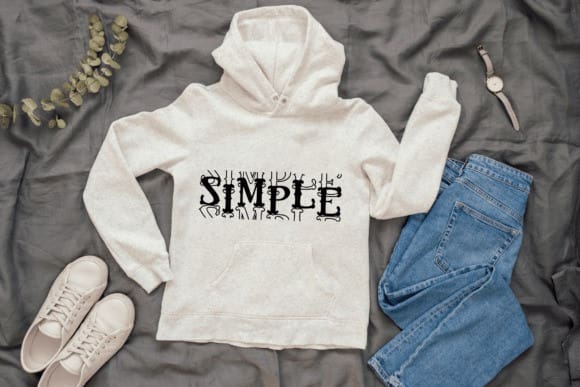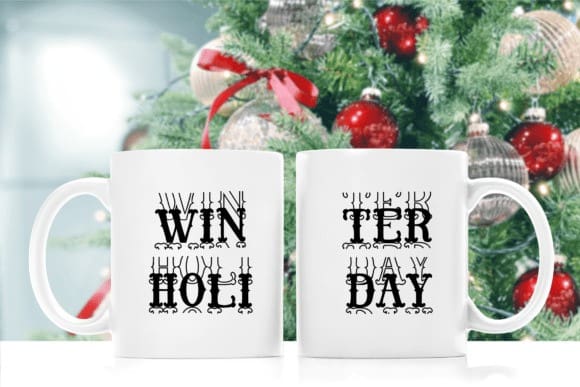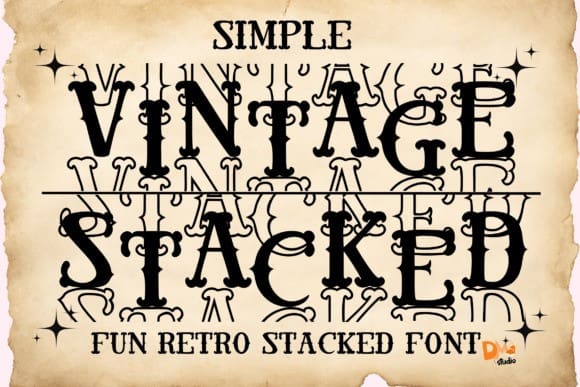
Simple Vintage Stacked Font
Simple Vintage Stacked Font, also known as the Zigzag Stacked Font. Seamlessly intertwining vintage appeal with modern design, this one-of-a-kind typeface offers a playful twist to classic monogram structures. Drawing inspiration from the zigzag pattern, this font injects a dash of whimsy into your creations, making it perfect for logos, stationery and personal gift personalization. Not just for monogramming, this alluring font also transforms text designs, ensuring your crafts carry a distinct touch that leaves a unique, indelible impression. This font is your secret weapon to infuse a subtle vintage personality into modern design narratives, guaranteed to enchant your audience.